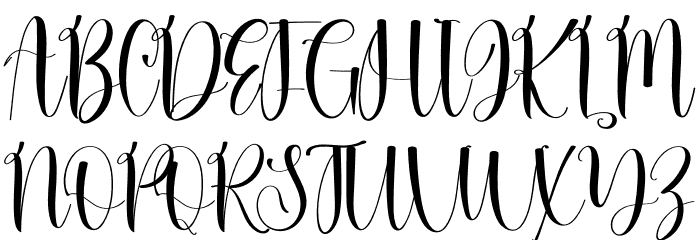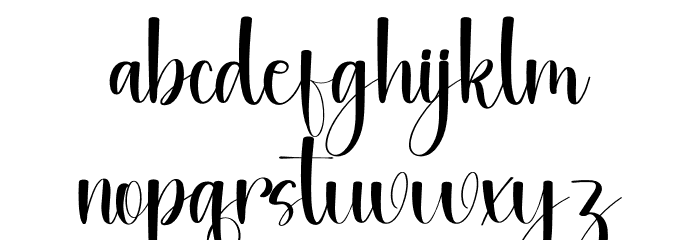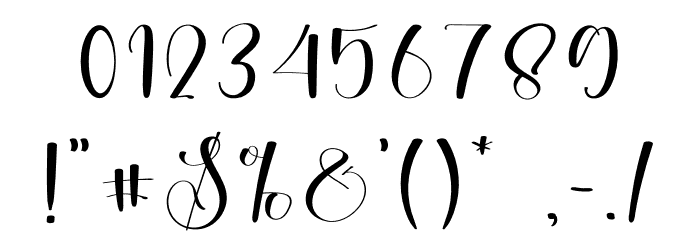
Dinner Font
This font exudes elegance and sophistication with its flowing script style. The characters are crafted with a graceful, cursive flair, featuring elongated strokes and delicate loops that add a sense of movement and fluidity. The uppercase letters are particularly ornate, with swirls and flourishes that enhance their visual appeal. The lowercase letters maintain a consistent style, offering a harmonious blend of curves and lines. Numbers and special characters are designed to complement the overall aesthetic, ensuring a cohesive look across all text. This font is perfect for projects that require a touch of class and refinement.
An elegant, flowing script font with ornate uppercase and harmonious lowercase characters.
- Font: Dinner
- Proposed Projects: Ideal for wedding invitations, elegant branding, luxury product packaging, and sophisticated event posters.
- Category: Script
- Overall Style: Elegant
- Use Case: Logos, Invitations, Branding